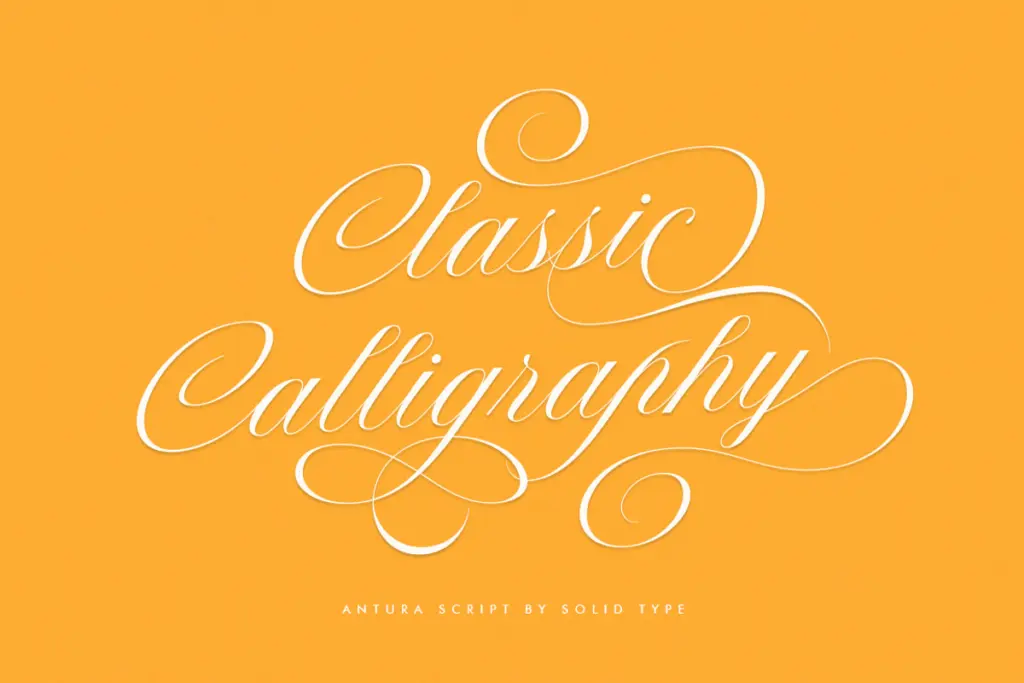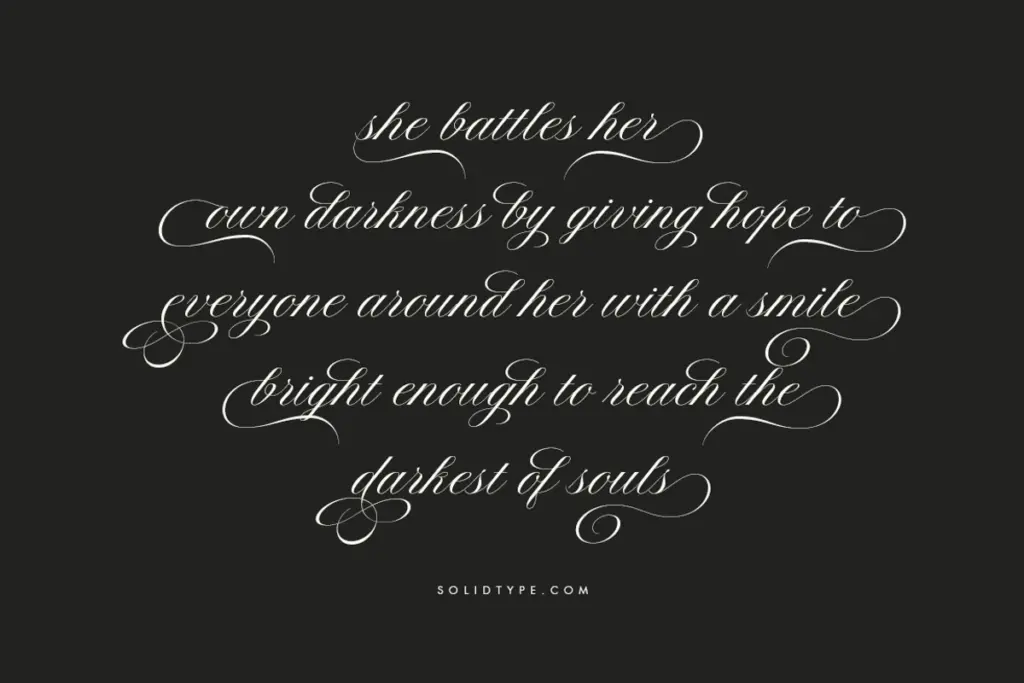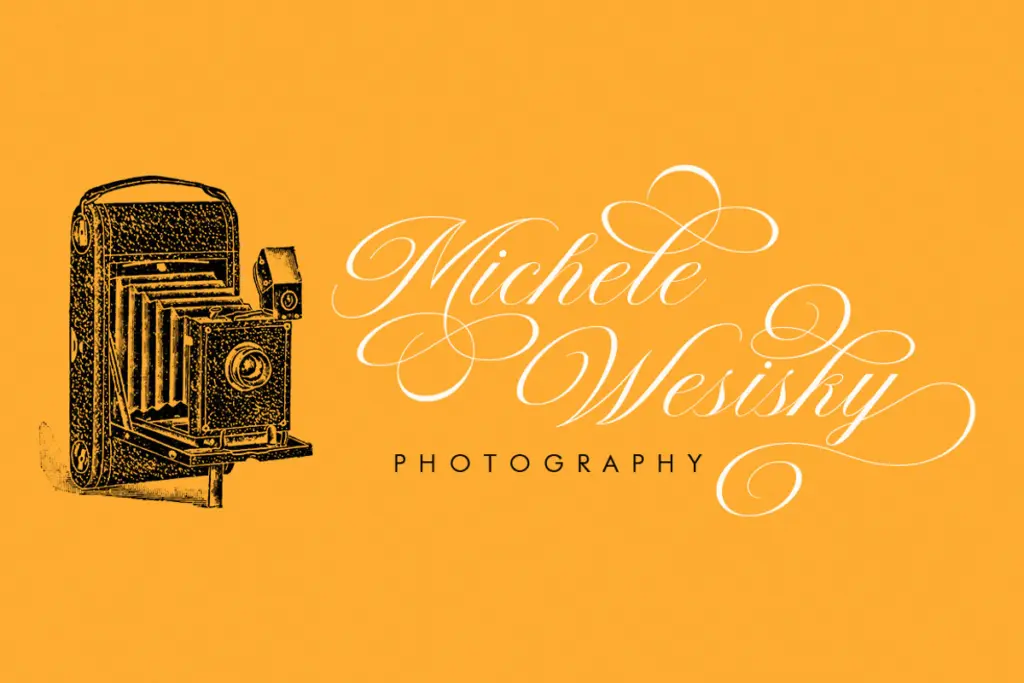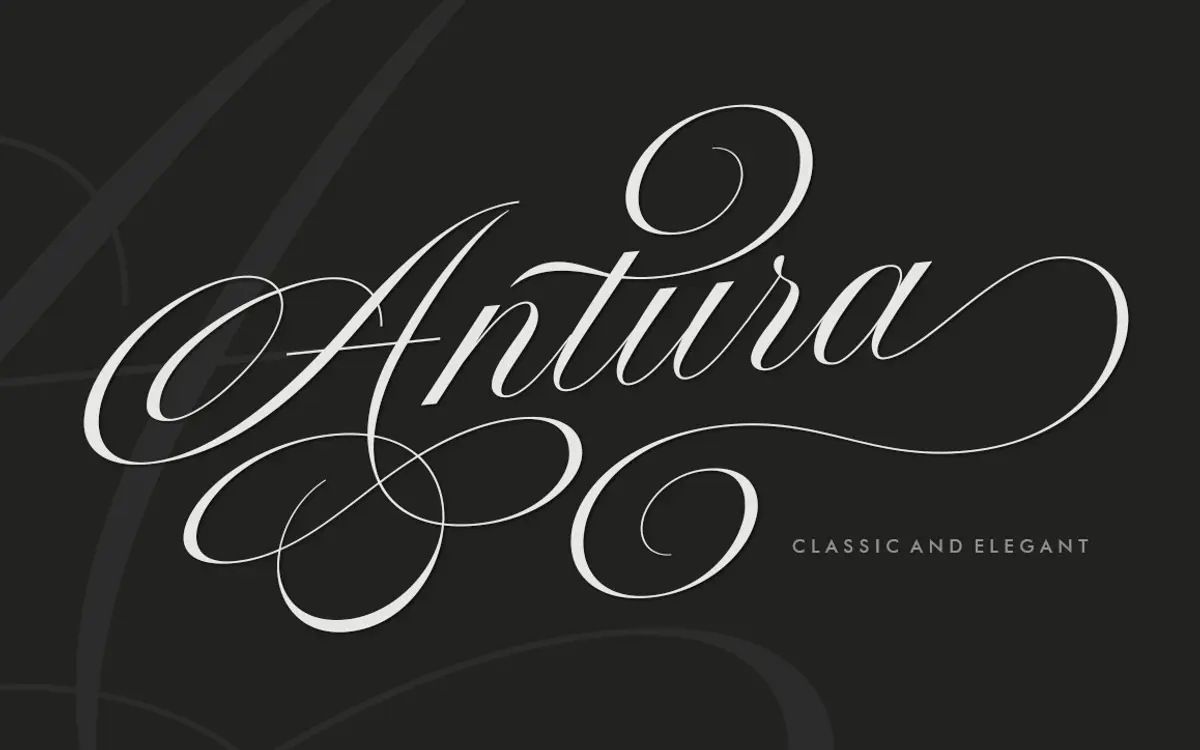
Antura Script sits in the copperplate-revival family that has become crowded over the last decade, but it leans harder into the classic engraving model than most of its competitors. The contrast between thick downstrokes and thin hairlines is pronounced, the loops are tight, and the baseline swing on connecting strokes is kept fairly conservative compared to looser, more brush-driven scripts. The result reads as formal rather than casual — closer to an invitation engraver’s hand than a lettering artist’s marker.
The slant is consistent throughout, and the x-height sits low, which is typical of the genre but worth flagging: at small sizes the lowercase can feel compressed against the flourish work happening above and below it. Capitals carry most of the personality here, with entry strokes that swing well outside the letter body. That makes single-word settings — a name, a monogram — look considerably richer than a full sentence, where the flourishes start competing with each other for space.
The typeface leans on alternate letterforms rather than true contextual OpenType substitution, delivered through Unicode PUA encoding. That’s an older but workable method: it means every alternate is reachable through a glyph panel or character map without needing an app that supports ligatures or stylistic sets natively. The trade-off is manual work. You are choosing each swash and connector by eye rather than letting the font make contextually smart substitutions as you type, so setting a full paragraph takes longer than it would with a more automated script family.
Multiple viable forms are offered for a number of letters, which gives some room to avoid awkward repeated shapes when the same character shows up twice in a word — a common failure point in scripts with only one alternate per letter. The connecting logic between letters is built for legibility rather than maximum flourish, so words hold together reasonably well even with the ornamentation switched on.
This is a font for occasions, not paragraphs. Wedding stationery, place cards, perfume and cosmetics labelling, restaurant signage headers, and logotypes built around a name or short phrase are where it earns its keep. The formality of the strokes suits anything trying to signal craftsmanship or heritage — packaging for a small-batch product, a boutique’s wordmark, a menu heading.
It is not built for body copy or long-form editorial use; the low x-height and tight spacing between swash-heavy letters make sustained reading tiring, and that’s true of nearly every copperplate script, not a flaw unique to this one. Pair it with a plain sans or a restrained serif for supporting text rather than asking it to carry a paragraph on its own. Anyone setting a lot of repeated words — a menu with recurring ingredient names, for instance — should budget time for manually swapping alternates, since the PUA workflow doesn’t automate that the way a more modern OpenType script would.
- Convincing copperplate contrast between thick and thin strokes gives it real formality.
- Multiple alternates per letter help avoid repeated shapes in short settings.
- PUA encoding means alternates are accessible without OpenType-savvy software.
- Low x-height and tight spacing make it tiring to read in anything longer than a phrase.
- Alternate access is manual rather than automated, so full-sentence setting takes real time.
Antura Script delivers a genuinely formal, copperplate-rooted script with enough alternate letterforms to avoid obvious repetition. It's best kept to short, decorative settings — names, headers, monograms — since the low x-height and manual PUA workflow make longer text impractical.